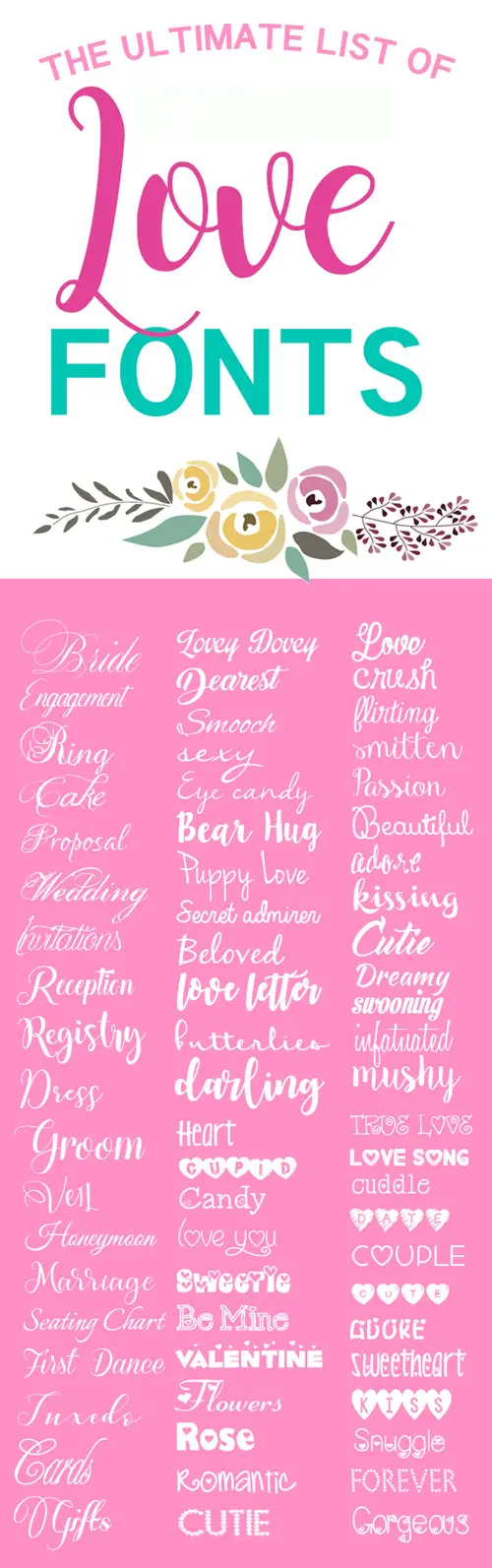
The Ultimate List Of Love Fonts
Explore an exquisite collection of love-themed fonts that beautifully capture the essence of romance. Whether you’re designing a wedding invitation, crafting heartfelt messages, or creating branding for a romantic venture, this ultimate list of love fonts offers a diverse range of styles to suit your needs.
• Variety of font styles including script, serif, and display
• Multiple weights for added versatility
• Easy to read and visually appealing designs
• Ideal for wedding invitations, greeting cards, and love letters
• Perfect for branding projects related to romance and relationships
• Use in digital and print media for a charming touch